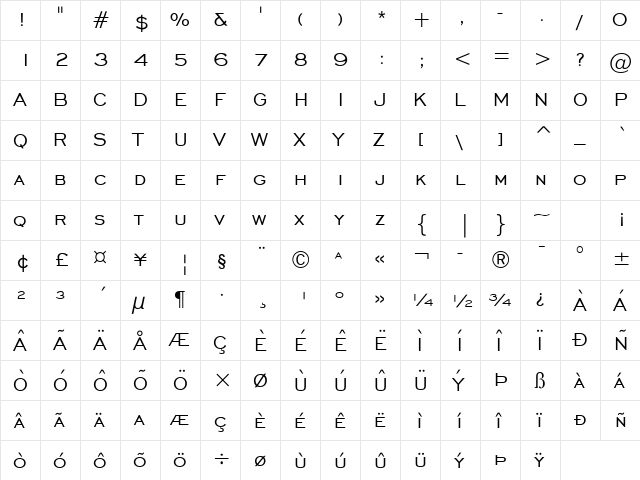
Chisel Normal Font Preview
Chisel Normal
Design Context for Chisel Typeface
Chisel offers clean, dependable letterforms without strong stylistic allegiance, making it a practical choice for designers who need flexibility.